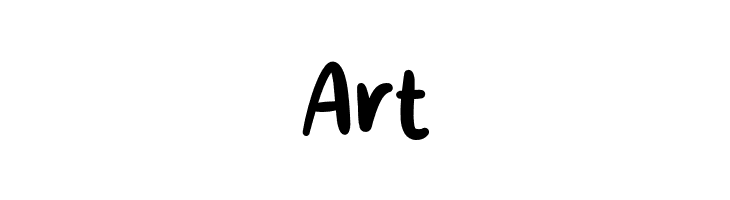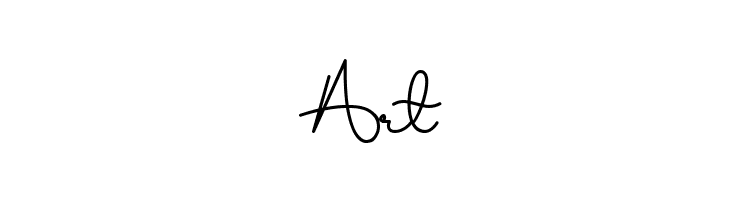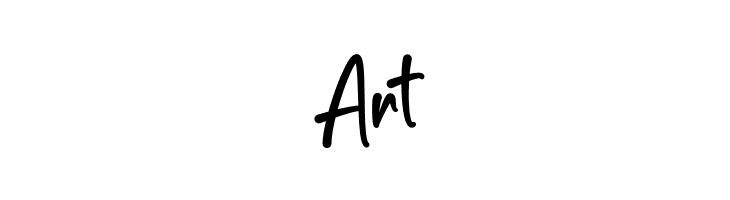
Decorative vintage-style font with tall, narrow characters.
Bold, playful handwritten script font.
A delicate, handwritten font with a whimsical and flowing style.
A bold, cursive script font with dynamic and fluid letterforms.
A playful, handwritten-style font with bold, rounded characters.
A playful and whimsical script font with smooth, interconnected letters.